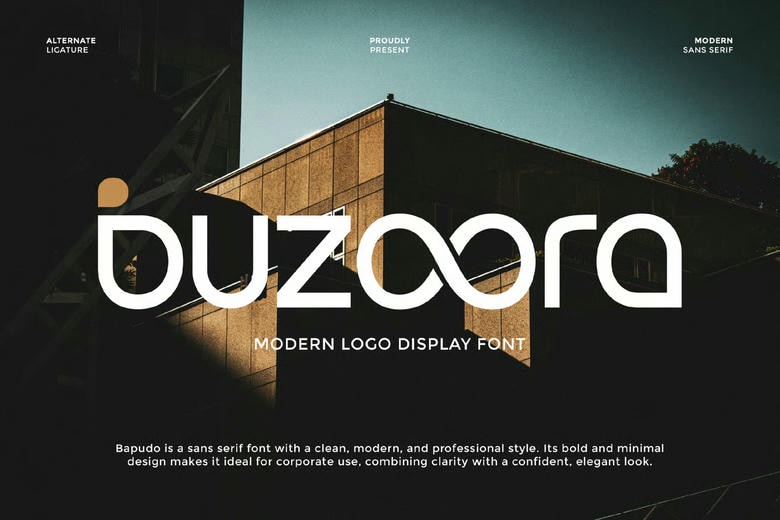
Buzoora Font
Buzoora is an aggressive and trendy display typeface designed to create the impact. Buzoora balances just the right amount of contemporary and solid design, with its smooth lines, edges and a strong typography. Every character is perfectly constructed in order to create the maximum visual effect, and it is a great option when a designer needs a font that will make him/her feel full of confidence and creativity.
Buzoora will provide clarity, power, and flexibility whether you are writing eye-catching headlines, making posters, or developing a firm brand identity. It also suits perfectly both the digital and print mediums and will make your message shine through its distinct structure.
Buzoora Modern Logo Font